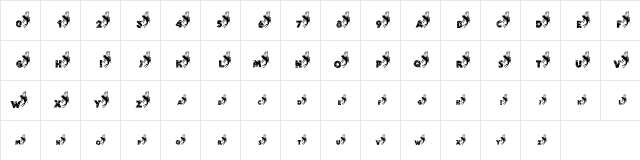
pf_fairie-3 Regular
Design Context for pf_fairie-3
pf_fairie-3 is a composed and adaptable typeface that performs quietly and consistently across a wide range of design contexts.